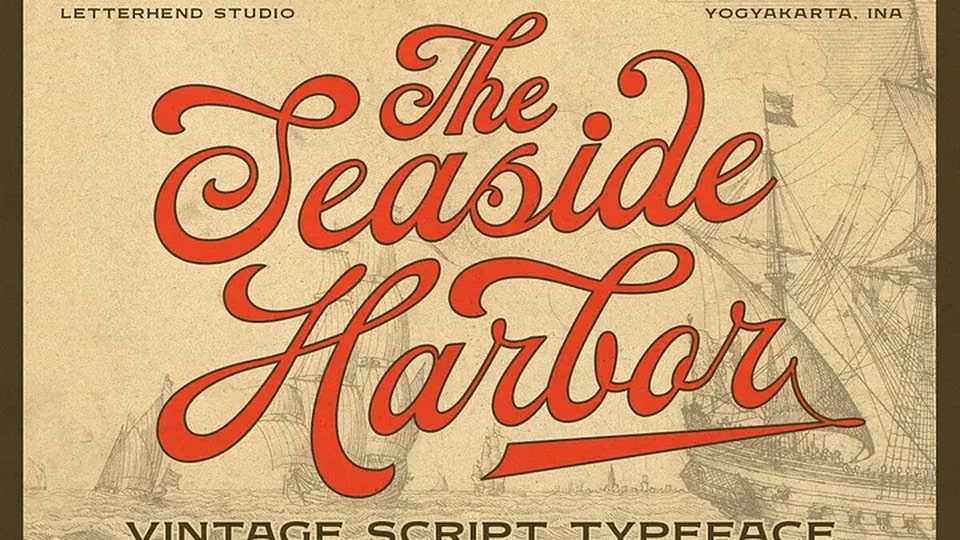
Download Seaside Harbor font, a vintage script typeface. This typeface has nostalgic feel because of its style, so the font is really match for your project with retro / vintage theme.